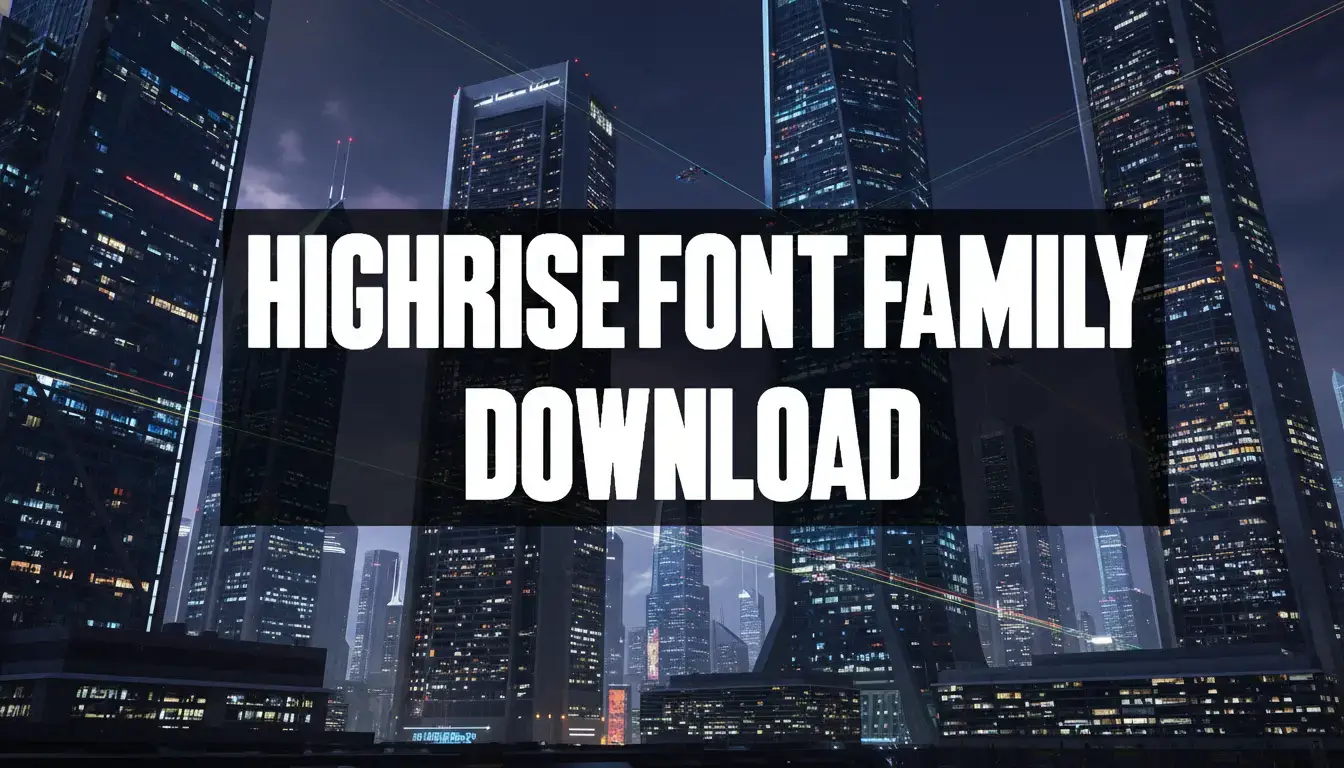
HighRise Font Family
HighRise Font Family is a sans serif font created by Indieground Design. It has a clean, no-nonsense look that fits modern brands and websites. The free download includes three styles, and you can try every one of them with your own text in the preview above.
- Designer: Indieground Design
- Font styles: 3 (Regular, Bold and Condensed)
- Glyphs: 46 in the Regular style
You get every letter from A to Z in both cases and all the numbers from 0 to 9, which means HighRise Font Family can handle full sentences, dates and prices. Punctuation is limited, so look at the character map if you need a specific symbol. Thanks to its accented letters, it also works for Spanish, French, Portuguese and Italian, not just English.
Designers usually reach for fonts like HighRise Font Family when they're making websites, app screens and clean logos. It works for headings and body text alike. If the download has several weights, use a heavier one for titles and a lighter one for paragraphs. Because the family has more than one style, you can mix them in a single design for headings, subheadings and highlights.
Yes. HighRise Font Family includes the accented letters needed for Spanish, French, Portuguese and Italian, so it works for more than just English.